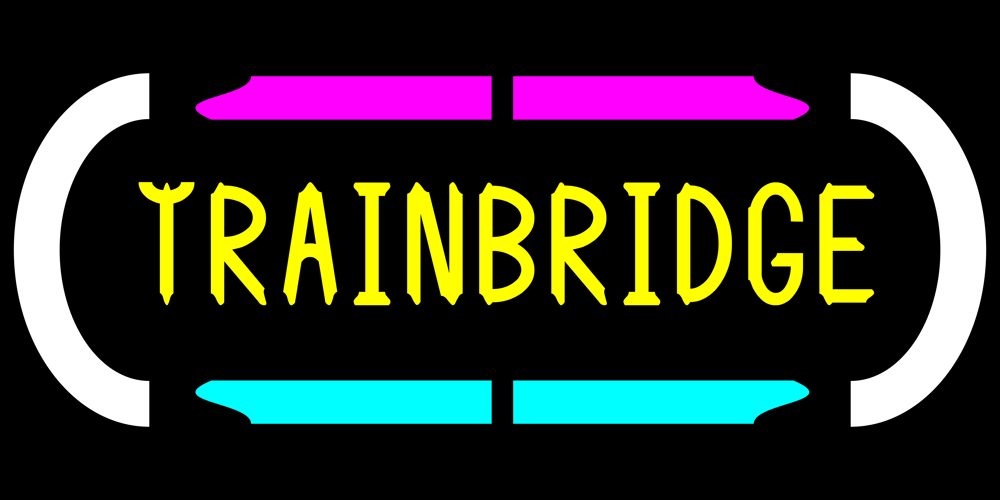
Trainbridge Font Family was designed by Mark Charles and published by Curvature Creations. Trainbridge contains 1 styles and family package options. My font Trainbridge is created by Power Point shapes, Block Arc and flowchart. It resembles a train and bridge, which gives it a unique look that will be eye catching and out standing.